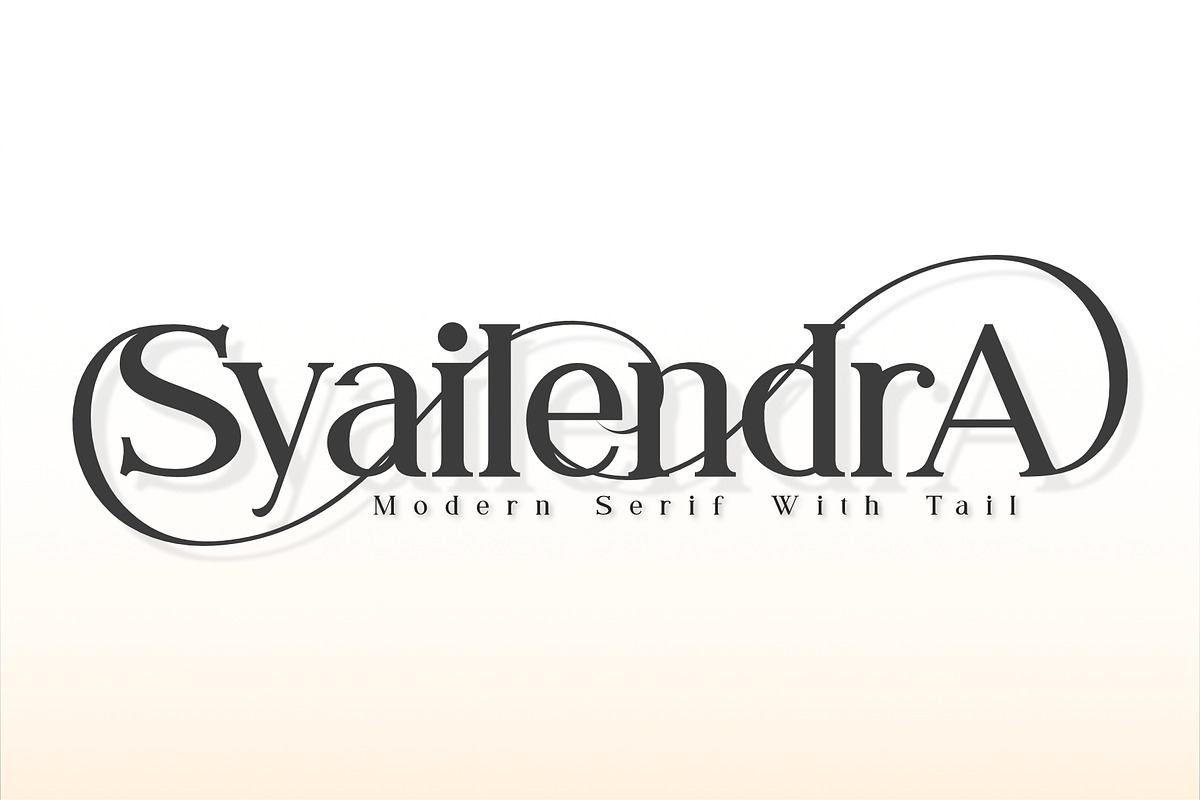
Syailendra - Modern Serif With Tail Font Free Download
Syailendra - Modern Serif With Tail Free Download
Introducing Syailendra - Modern Serif With Tail Free Download, a sophisticated typeface that seamlessly blends classic serif elements with elegant tail flourishes. This font is perfect for branding, editorial designs, invitations, and projects that require a touch of refinement and uniqueness. Its distinctive character shapes and stylish details make it a standout choice for designers seeking to elevate their typography. Download Syailendra - Modern Serif With Tail Free Download to explore its features in personal projects. For commercial use, please ensure you purchase the appropriate license. Enhance your design repertoire with the timeless elegance of Syailendra - Modern Serif With Tail Free Download